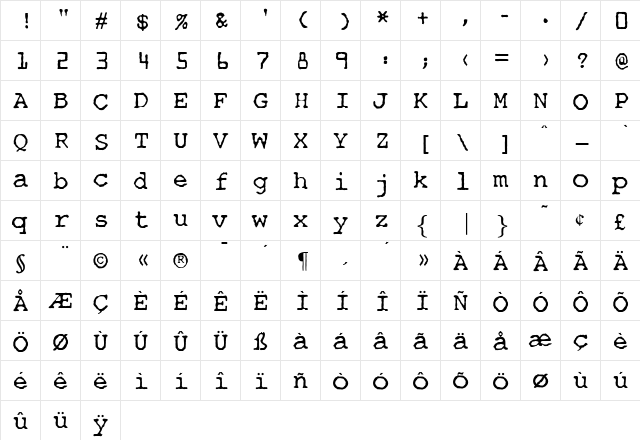
OPTITypewriter Regular
Design Context for OPTITypewriter Typeface
OPTITypewriter brings the precise, column-aligned rhythm of monospaced typography to designs that value technical clarity and systematic order.
Pro Tip: Use OPTITypewriter with slightly increased line-height for extended reading — fixed-width spacing can feel dense in longer passages without extra breathing room.